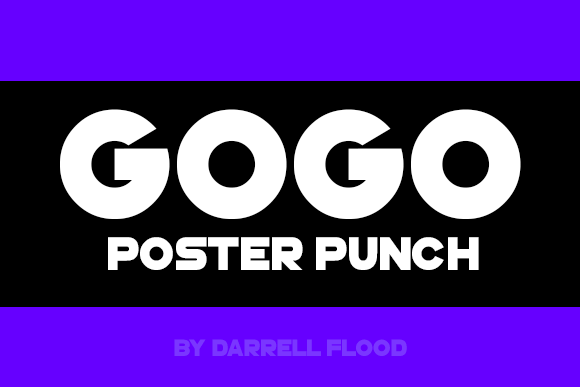
Unleash the explosive energy of creative expression with GoGo Poster Punch, the sans serif font family that packs a powerful punch of visual impact. Crafted with meticulous precision by Dadiomouse, this typeface is a designer's dream, embodying strength, cleanliness, and audacious charm.
GoGo Poster Punch is the perfect font for creating posters that demand attention. Its bold and confident strokes command presence, ensuring your message cuts through the noise and captivates your audience. The high-impact nature of this font makes it ideal for headlines, titles, and any text that seeks to leave a lasting impression.
Dive into a world of limitless creativity as you explore the diverse weights and styles within the GoGo Poster Punch family. From the assertive boldness of GoGo Black to the playful dynamism of GoGo Inline, each variation brings a unique flavor to your designs. Mix and match them to create harmonious compositions that reflect your brand's personality and resonate with your target audience.
Designed with versatility in mind, GoGo Poster Punch transcends the realm of posters, seamlessly adapting to a multitude of applications. Inject a shot of energy into your social media graphics, website designs, product packaging, and more. Let your imagination run wild as you discover new ways to harness the captivating power of this font.
Dare to stand out, to make a statement, to leave an indelible mark on the minds of those who encounter your creations. GoGo Poster Punch is your secret weapon, the font that elevates your designs to the next level, propelling them into the realm of the unforgettable.